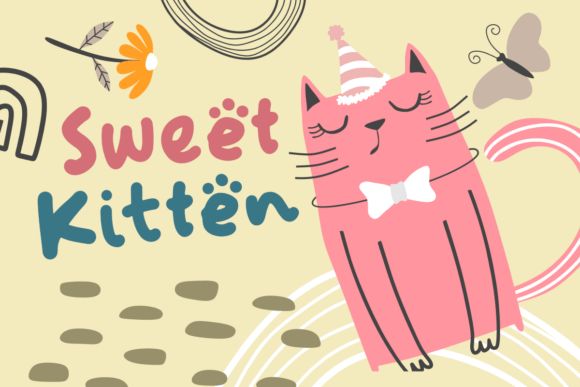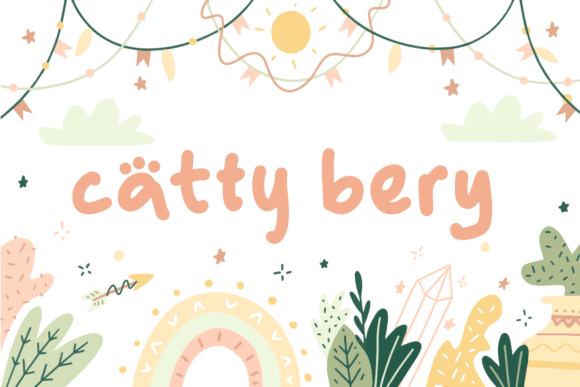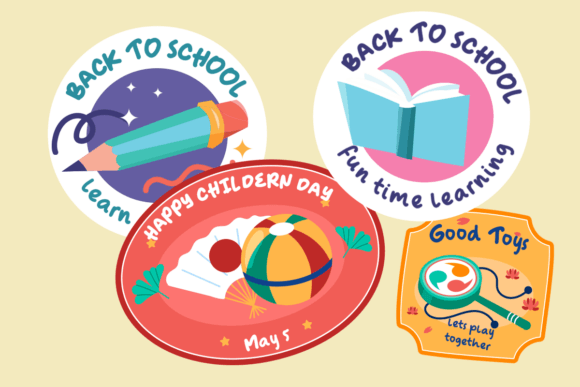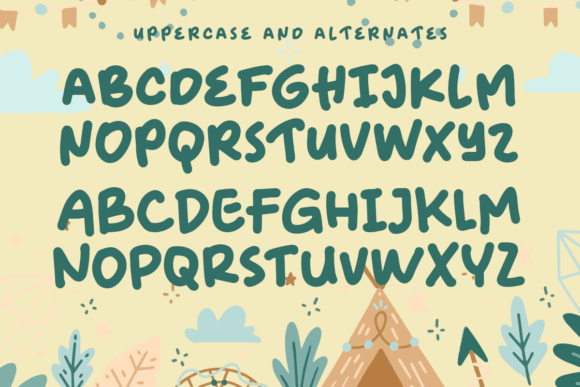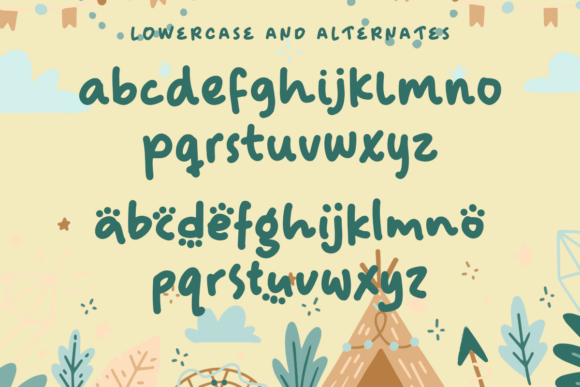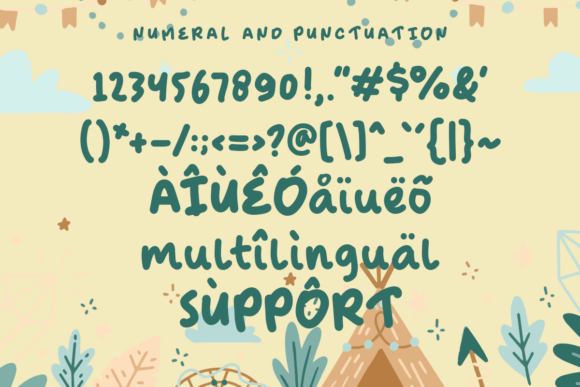
Cupcat Font: The Perfect Blend of Whimsy and Charm
Are you on the lookout for a font that can add a dash of playfulness and charm to your designs? Look no further than the Cupcat Font! This delightful handwritten font is designed to bring a friendly, approachable vibe to your projects, making it perfect for personal endeavors, logos, invitations, and branding. With its neat, whimsical strokes, Cupcat Font is sure to capture the hearts of designers and crafters alike.
The Unique Characteristics of Cupcat Font
Cupcat Font boasts a unique blend of charm and playfulness, setting it apart from other fonts in its category. Its neat, whimsical strokes are carefully crafted to bring a touch of creativity and warmth to your designs. Whether you’re working on a personal project or a professional branding campaign, this font is sure to make your designs stand out.
One of the standout features of Cupcat Font is its PUA encoding. This means that you can easily access all of the cute glyphs and swashes, giving you the freedom to experiment with different design elements. With Cupcat Font, you can add a personal touch to your designs, making them more engaging and memorable.
Cupcat Font is an incredibly versatile font that can be used for a wide range of design projects. Here are just a few ideas to get you started:
• Personal Projects: Add a touch of whimsy to your personal projects, such as journals, planners, and scrapbooking pages.
• Logos: Create a unique and memorable logo for your business or brand with Cupcat Font.
• Invitations: Design beautiful and eye-catching invitations for special occasions, such as weddings, birthdays, and baby showers.
• Branding: Use Cupcat Font to create a cohesive brand identity that reflects your values and personality.
Why Choose Cupcat Font?
With so many fonts available, why choose Cupcat Font? Here are just a few reasons why designers and crafters love this font:
• Unique and Playful: Cupcat Font offers a unique blend of whimsy and charm, making it perfect for designers who want to add a touch of personality to their work.
• Easily Accessible: With PUA encoding, you can easily access all of the cute glyphs and swashes, making it easy to experiment with different design elements.
• Versatile: Cupcat Font can be used for a wide range of design projects, from personal endeavors to professional branding campaigns.
• High-Quality: This font is designed to deliver high-quality results, ensuring that your designs look professional and polished.
Tips for Using Cupcat Font
Here are a few tips for getting the most out of Cupcat Font:
• Experiment with Different Sizes: Cupcat Font looks great in a variety of sizes, so don’t be afraid to experiment with different sizes to find the one that works best for your design.
• Pair with Other Fonts: Cupcat Font pairs well with other fonts, so try combining it with a sans-serif font for a unique and interesting look.
• Use the Swashes: The swashes in Cupcat Font are designed to add a touch of whimsy to your designs, so don’t be afraid to use them to add some personality to your work.
In conclusion, Cupcat Font is a unique and versatile font that is perfect for designers and crafters who want to add a touch of whimsy and charm to their work. With its neat, whimsical strokes and PUA encoding, this font is sure to bring a friendly, approachable vibe to your designs. Whether you’re working on a personal project or a professional branding campaign, Cupcat Font is a great choice. So why wait? Download Cupcat Font today and start creating beautiful, eye-catching designs that are sure to capture the hearts of your audience!